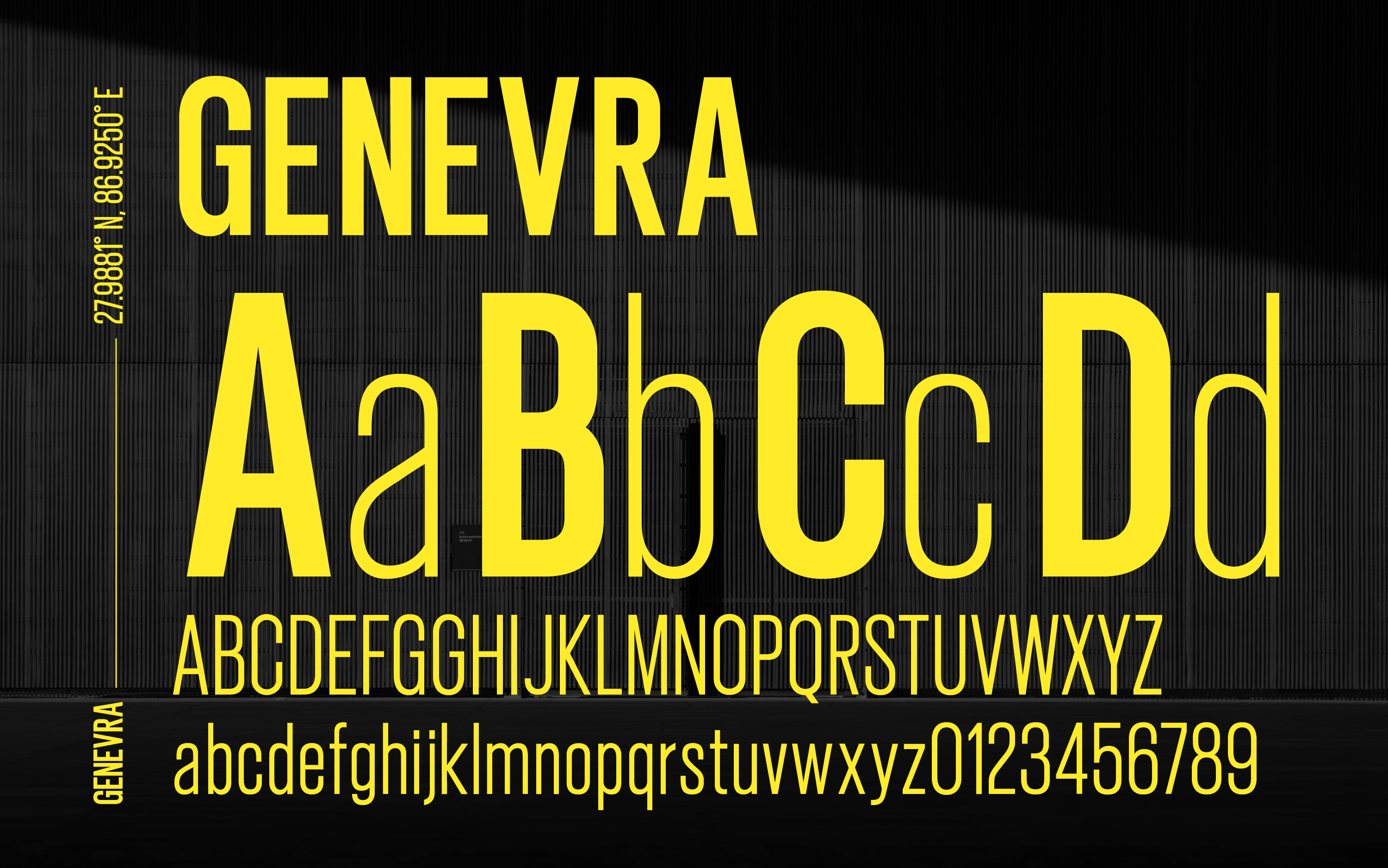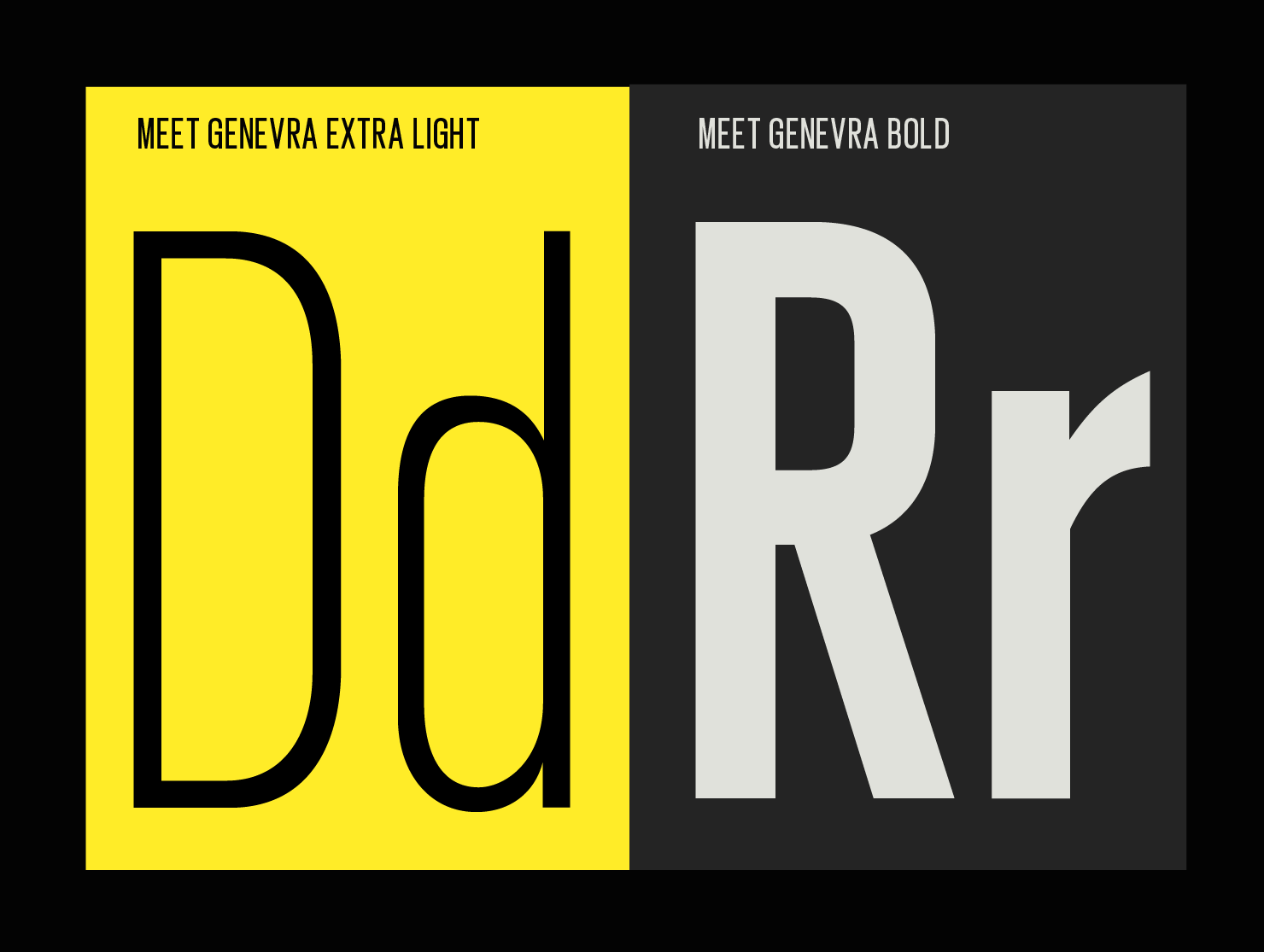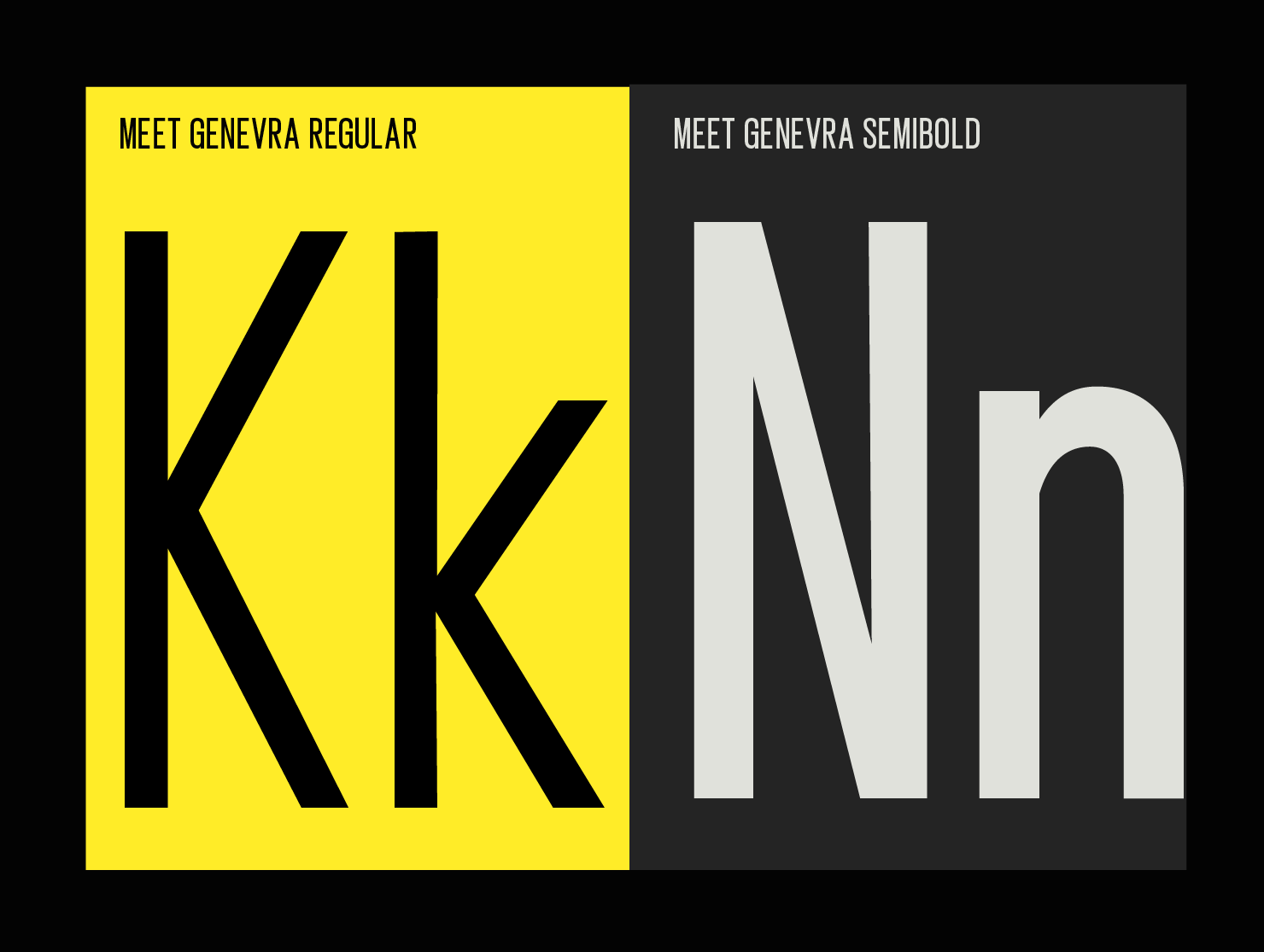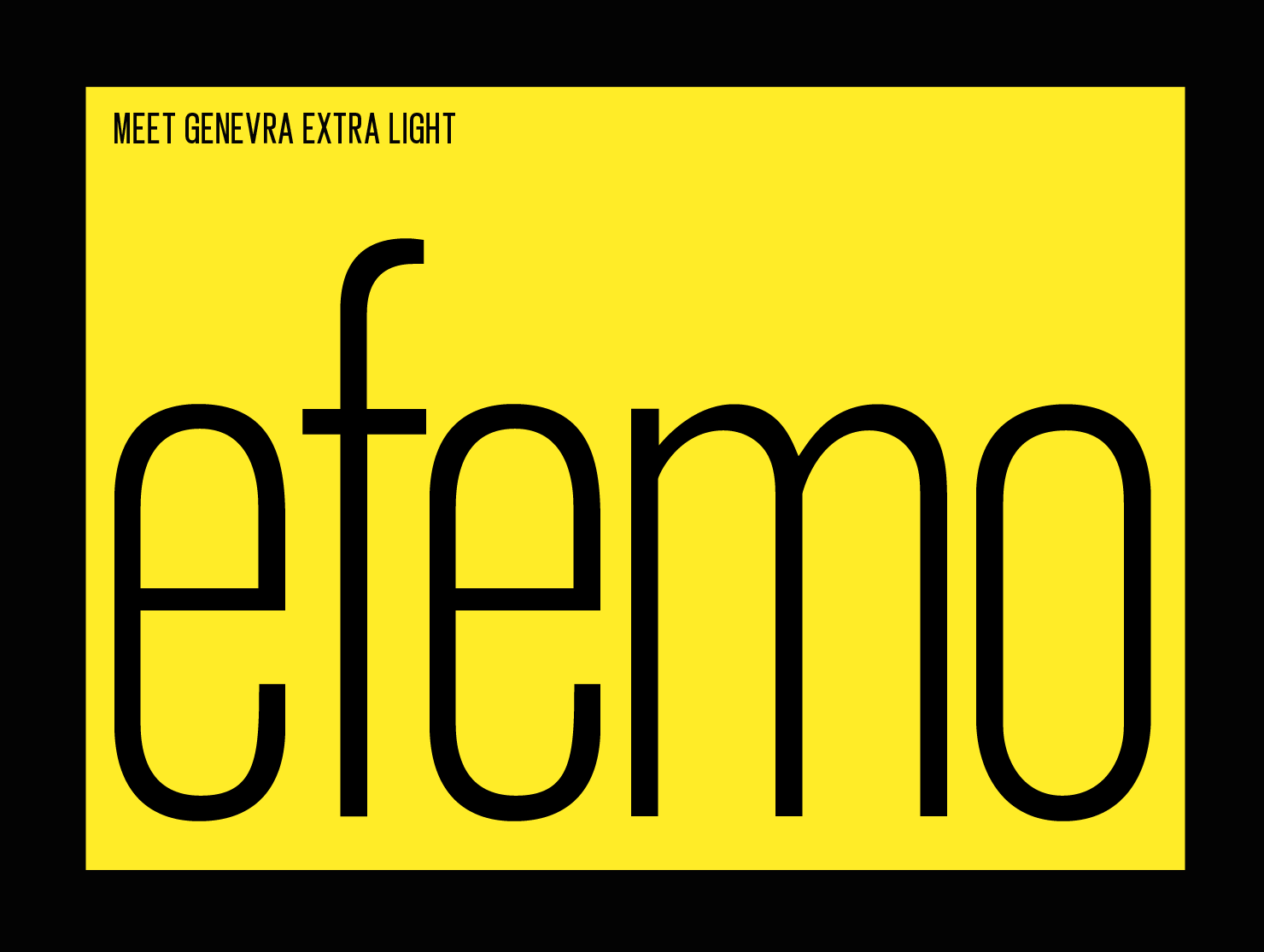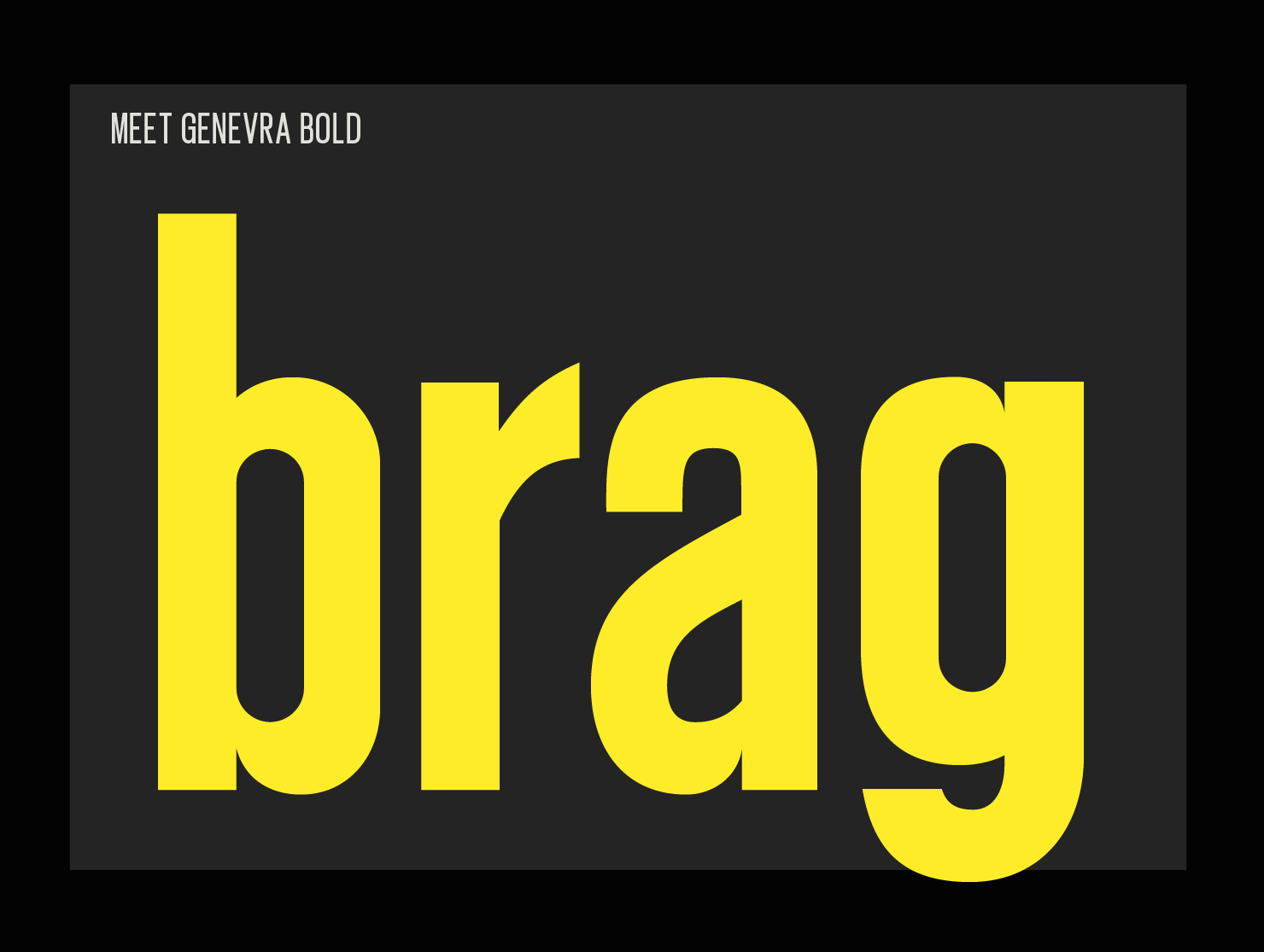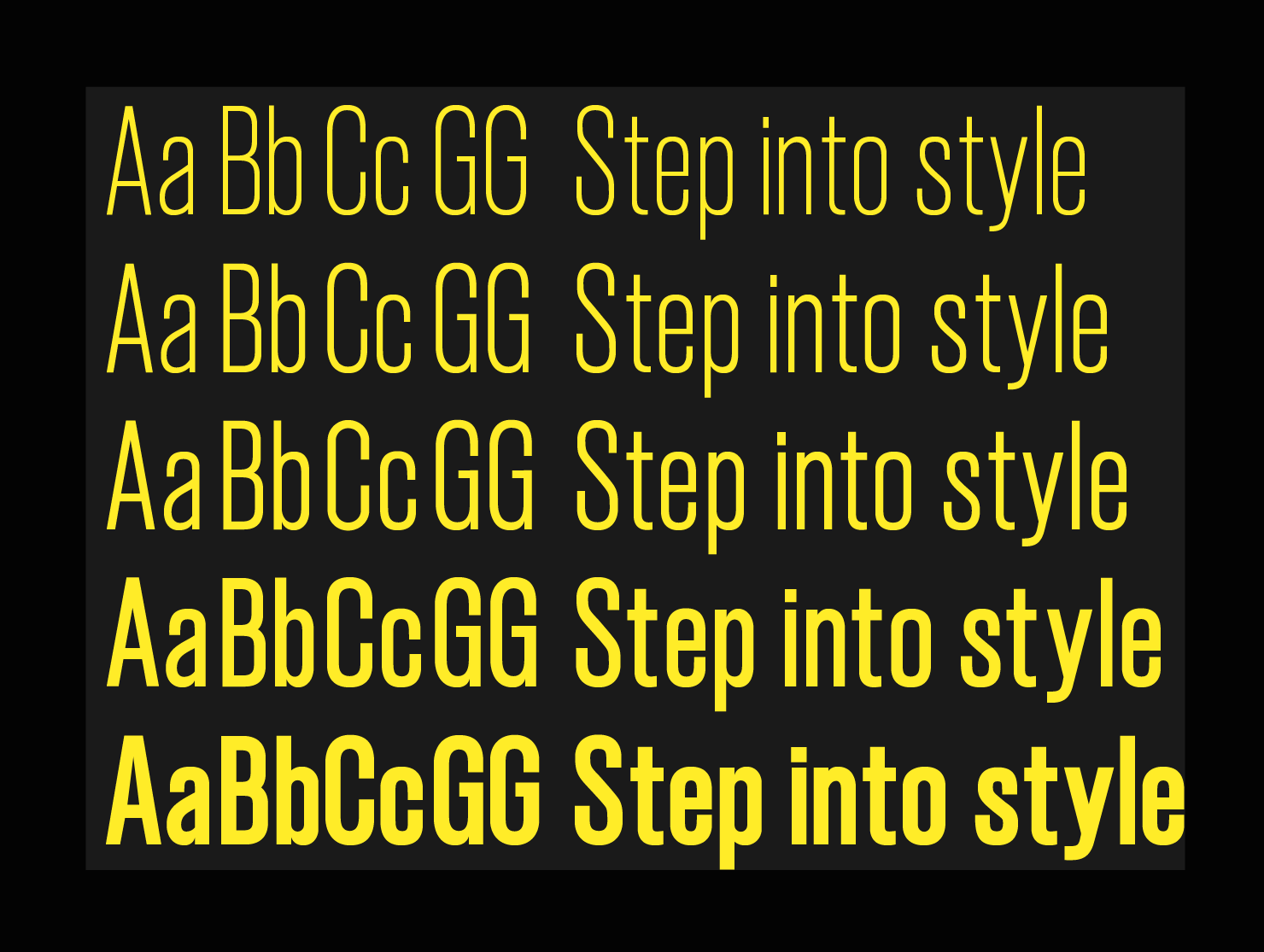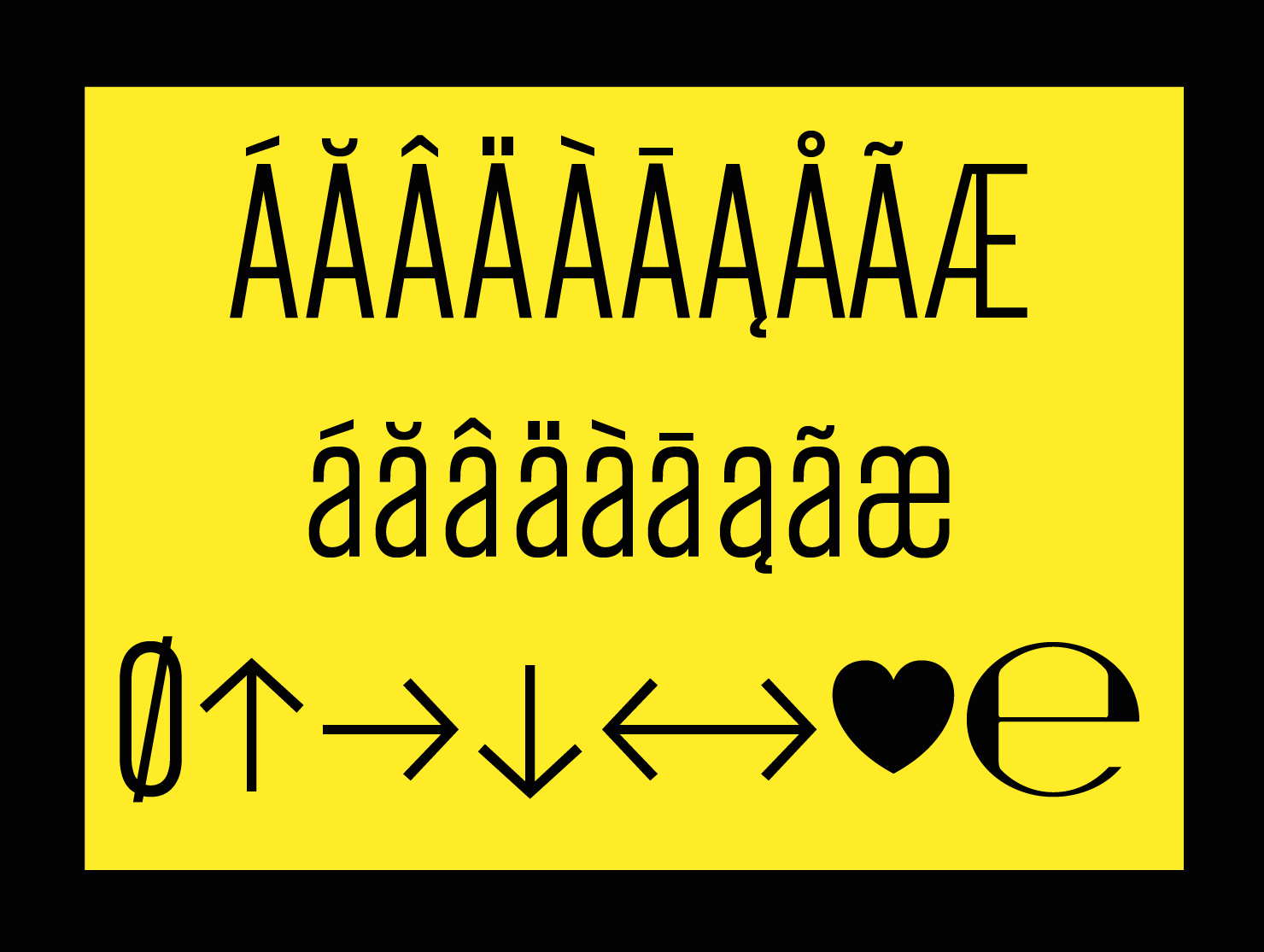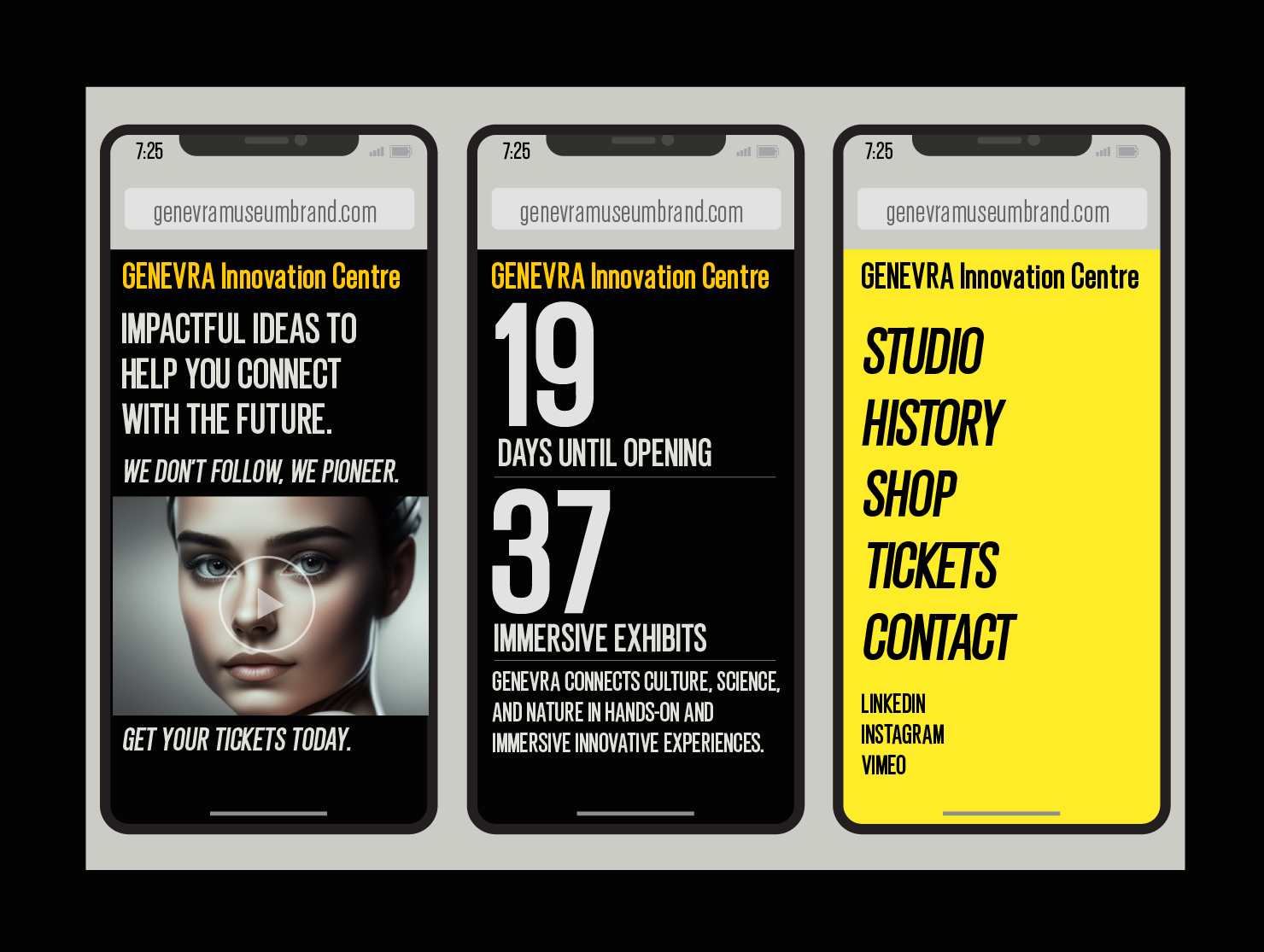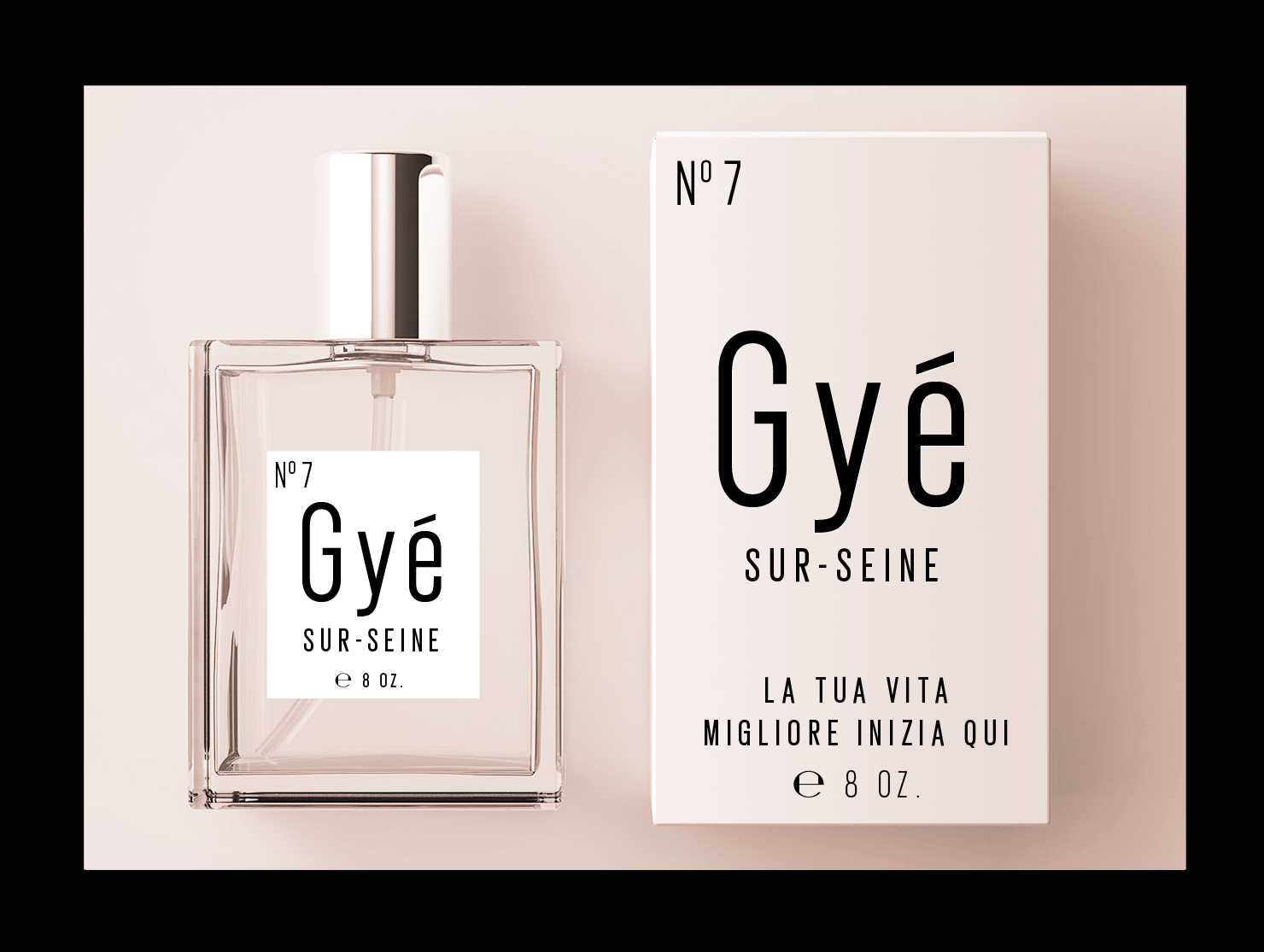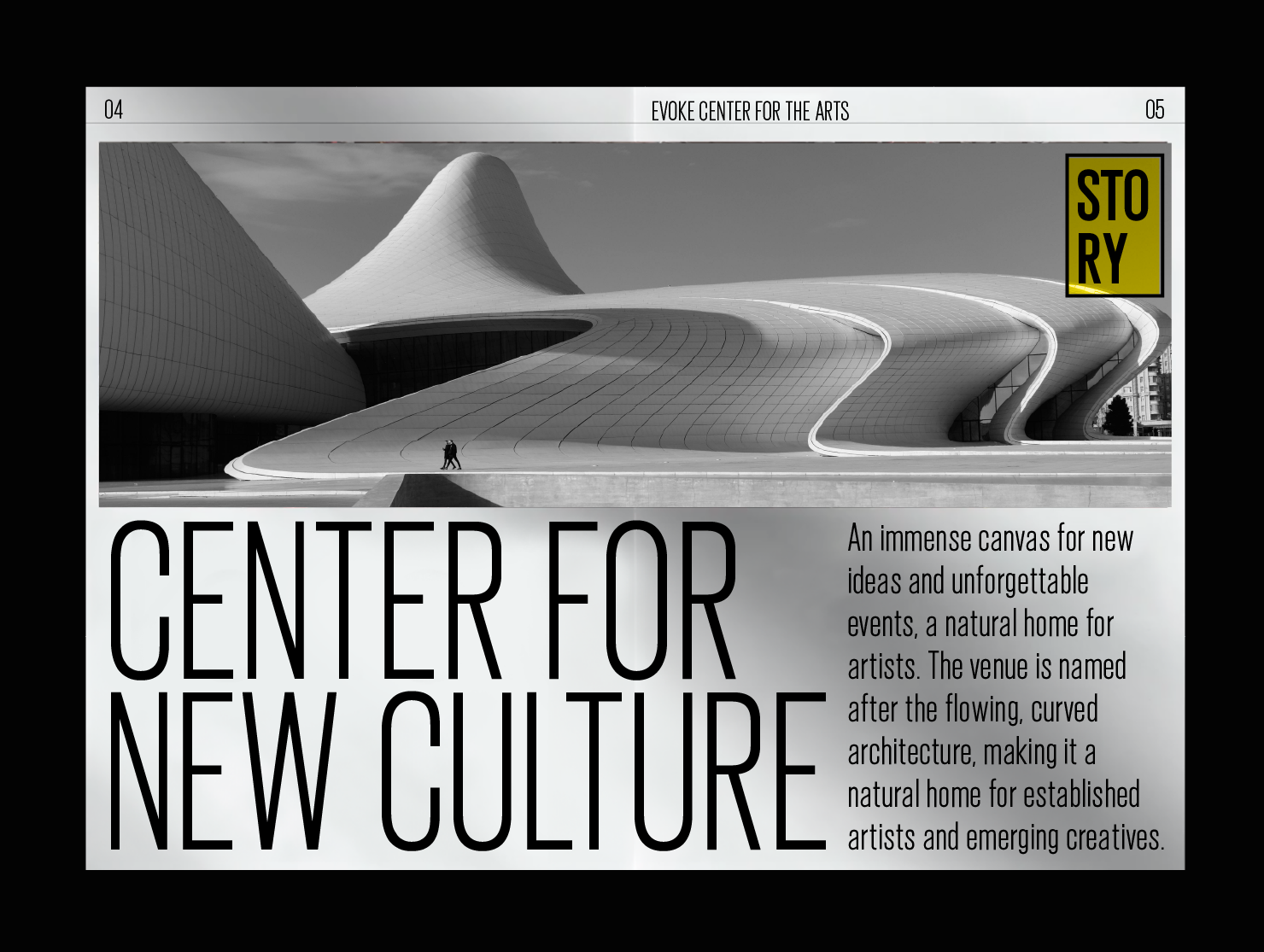
Genevra
POPULAR CONDENSED FONT
Genevra condensed font
SEVEN WEIGHTS FROM EXTRA LIGHT TO BOLD
Swiss style poster font
MULTILINGUAL + SPECIAL CHARACTERS
Designer Web Font
BIG IMPACT ON SMALL SCREENS
Swiss style poster font
CONDENSED MARKETING FONT
Designer condensed font
INCREDIBLE VERSATILITY
Swiss style poster font
LAYOUT DESIGN FONT
Designer Web Font
SPACE-EFFICIENT PRESENTATON FONT
Swiss style poster font
LAYOUT DESIGN FONT
Designer condensed font
STYLISH AND SPACE-EFFICIENT
Swiss style poster font
LOVEABLE AND LIKABLE
Designer Condensed Font
MODERN TYPOGRAPHY ANGLES
Modern typography design
MODERN FONT DESIGN